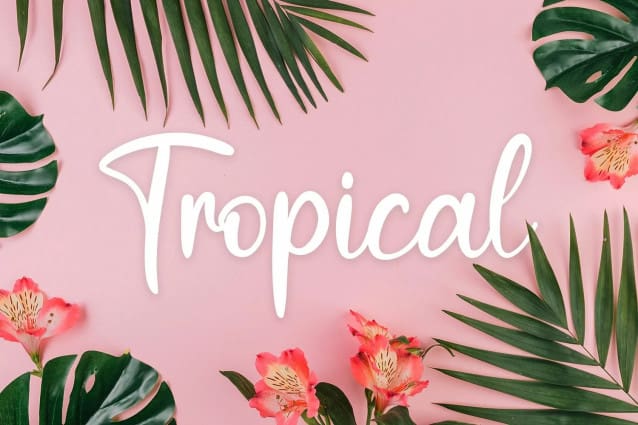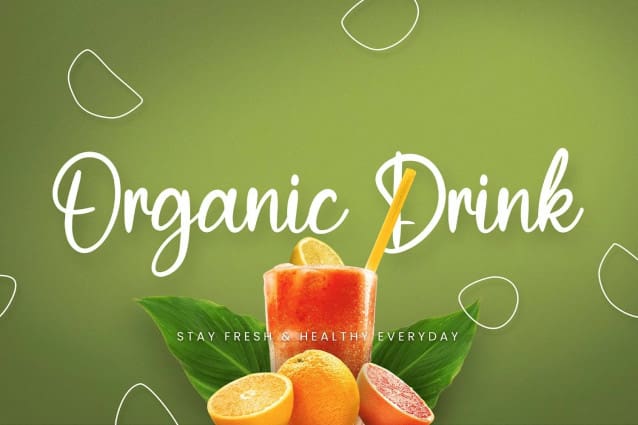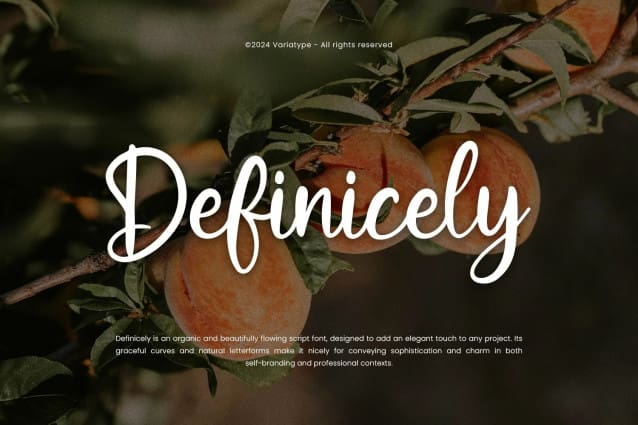
Definicely Script Font
Definicely Script Font is an organic and beautifully flowing script font, designed to add an elegant touch to any project. Its graceful curves and natural letterforms make it nice for conveying sophistication and charm in both self-branding and professional contexts.